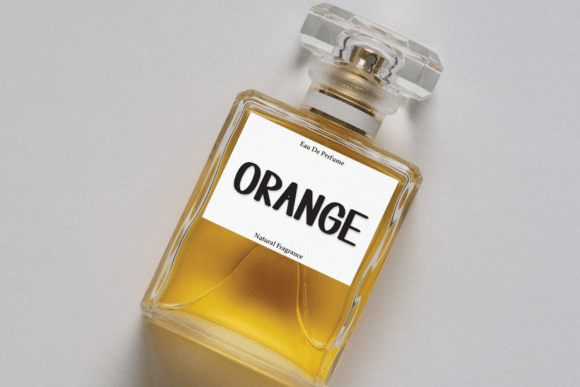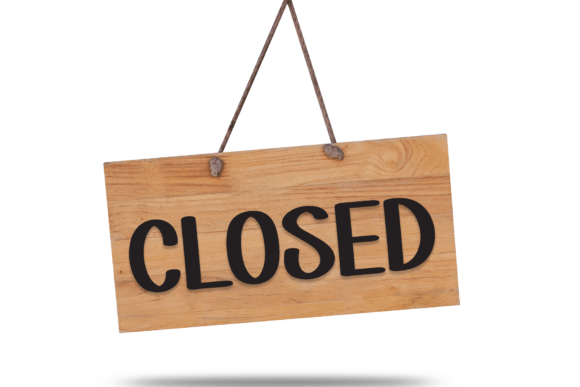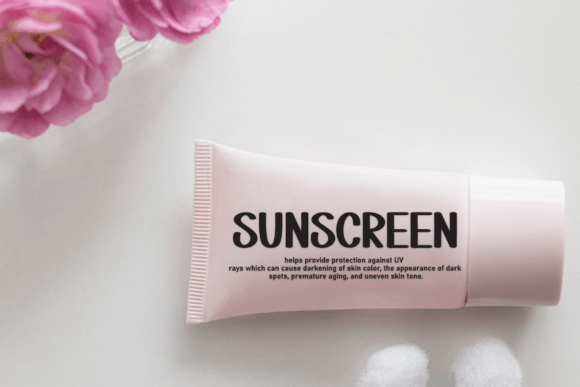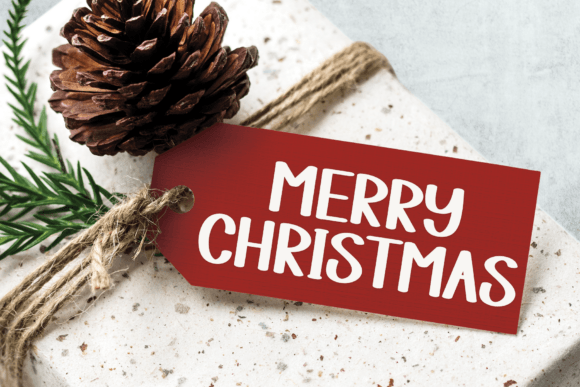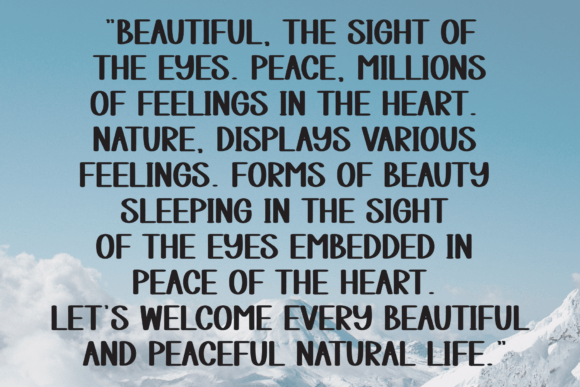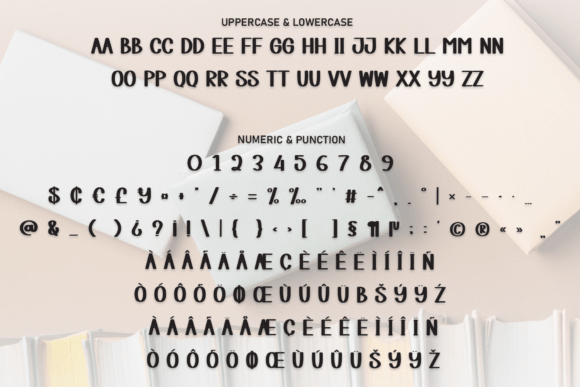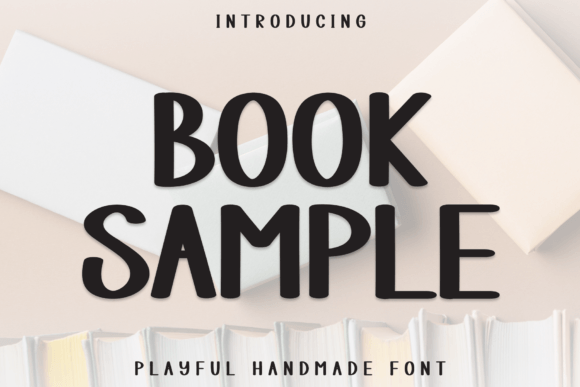
Discover the Whimsical Charm of Book Sample Font
Have you ever been in the middle of a design project, pouring your heart and soul into it, only to get stuck on one thing: the font? I certainly have! It was during a particularly stressful wedding invitation design project that I stumbled upon the delightful Book Sample Font. Its whimsically playful and handcrafted charm instantly captured my attention, and I knew right then and there that it was exactly what I needed to bring a sweet, friendly vibe to my design.
What I Love About Book Sample Font ✨
- ✅ Its unique, handcrafted charm adds a touch of personality to any design
- ✅ Perfect for crafting memorable wedding invitations, heartfelt cards, and more
- ✅ Exudes warmth and spontaneity, lending a delightful, joyous tone to your creative canvas
- ✅ Easy to read and understand, even in smaller sizes
Small Quirks or Limitations to Consider 🤔
- ⚠️ May not be suitable for very formal or corporate designs, as it has a distinctly playful tone
- ⚠️ Some users may find the handcrafted imperfections to be slightly distracting
The Story Behind Book Sample Font: Designer Inspiration
Book Sample Font was created with the intention of capturing the warmth and spontaneity of handwritten text. The designer, inspired by the beauty of imperfect handwriting, aimed to create a font that would bring a touch of personality to any design. With its unique, handcrafted charm, Book Sample Font is perfect for designers and crafters looking to add a sweet, friendly vibe to their creative projects.
| What type of designs is Book Sample Font best suited for? | Book Sample Font is perfect for crafting memorable wedding invitations, heartfelt cards, and any design that yearns for a dash of fun and personality. |
| Is Book Sample Font easy to read? | Yes, Book Sample Font is easy to read and understand, even in smaller sizes. |
| Does Book Sample Font support OpenType features? | Yes, Book Sample Font supports OpenType features, such as glyphs and stylistic alternates, which can be accessed in compatible design software. |